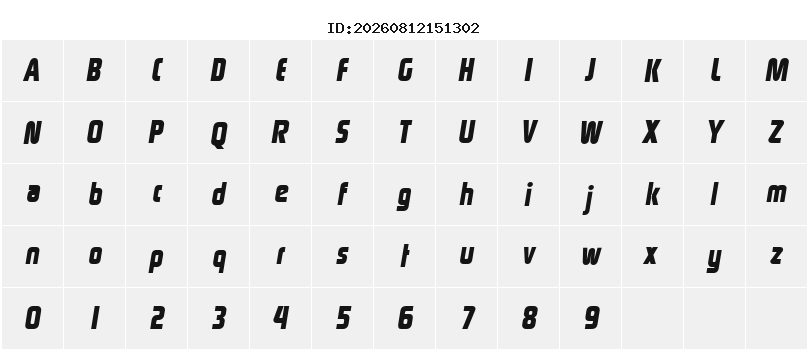
• Font Name: Rinehart
• Font Style: Bold-Oblique
• Full Font Name: Rinehart Bold-Oblique
• PostScript Name: Rinehart-Bold-Oblique
About Rinehart.ttf
Rinehart.ttf is a modern, elegant sans-serif font designed for ultimate readability and visual harmony. Perfect for branding, headlines, web design, and print materials.